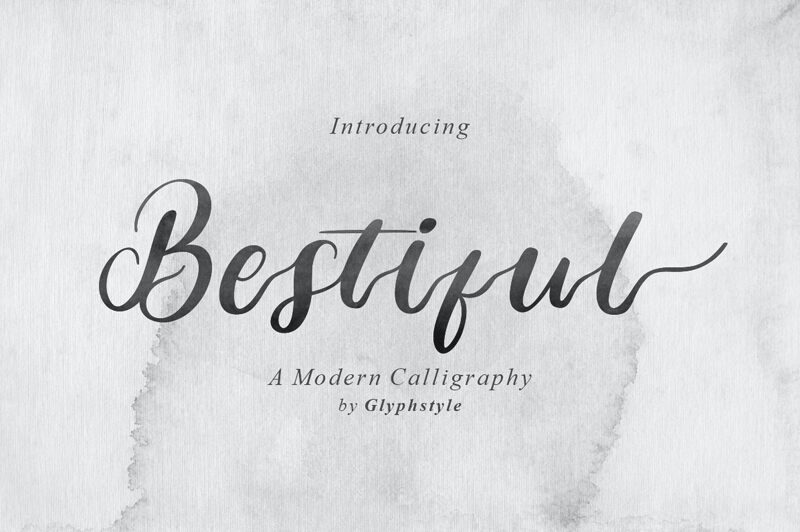
Bestiful Demo
Bestiful is the epitome of modern calligraphy, designed by GlyphStyle 2021. This semi-bold font typeface is a perfect blend of contemporary and classic styles that will add a touch of sophistication to any project. Its sleek and fluid strokes create an effortless flow on paper, making it suitable for wedding invitations, branding, advertising, and other creative projects. Bestiful's unique style exudes elegance and refinement with every letterform, making it perfect for those looking to elevate their designs. Whether you're creating an elegant logo or designing a chic product label, Bestiful is the ideal font choice that will leave a lasting impression on your audience.